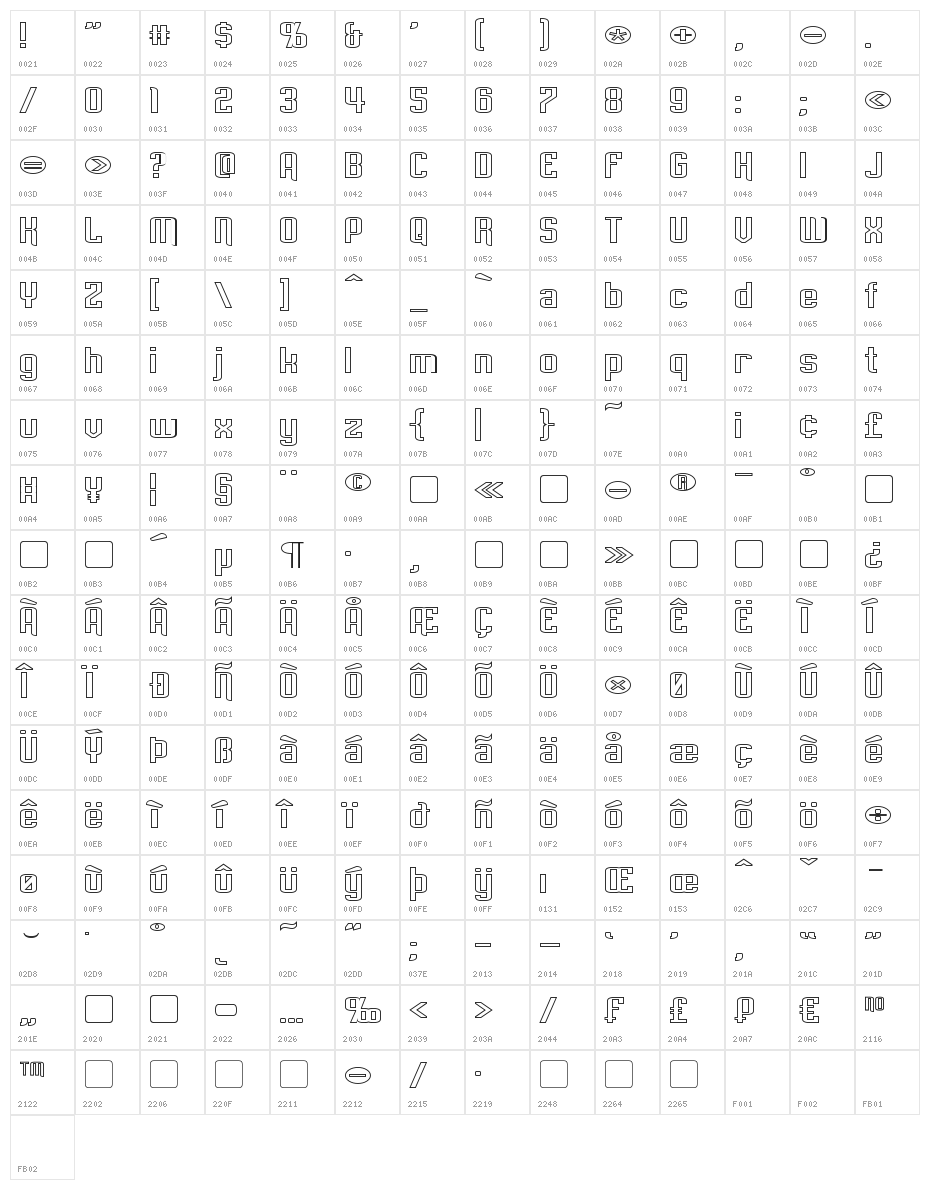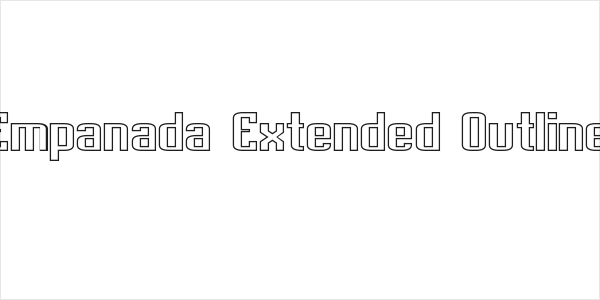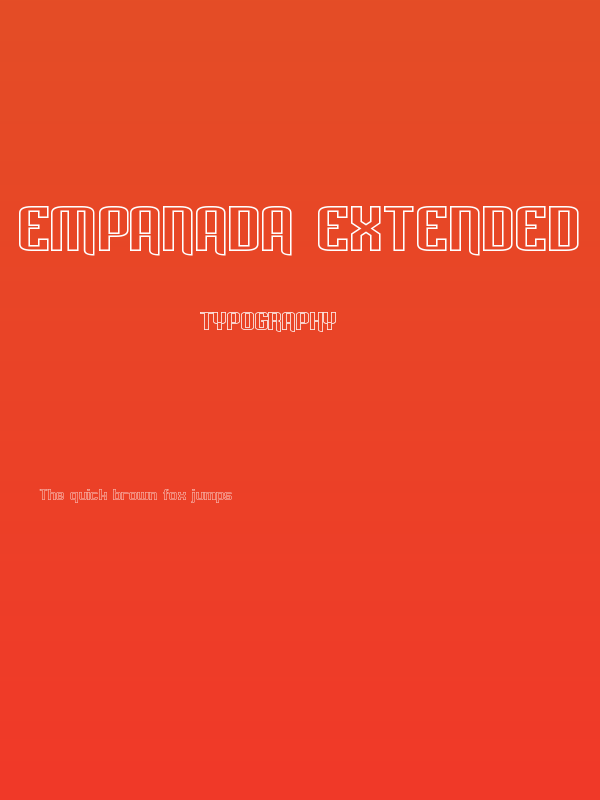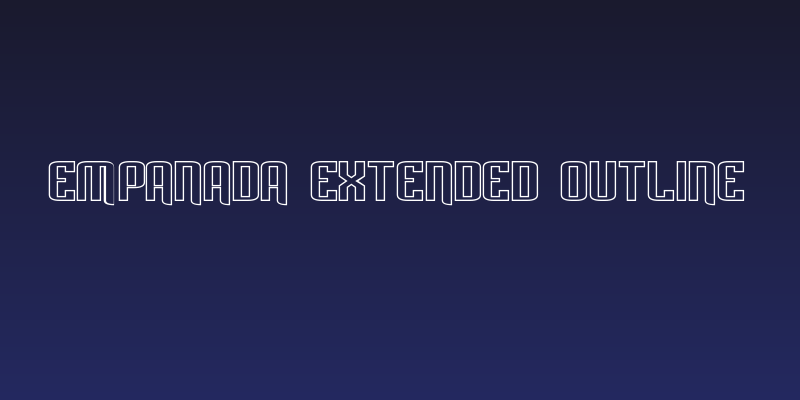
Empanada Extended Outline Font
Empanada Extended Outline Description
This font features a bold, extended outline style that gives it a striking and modern appearance. The characters are uppercase and lowercase letters, numerals, and a variety of special symbols, all presented with a consistent outline that creates a hollow effect. The design is geometric, with clean lines and a uniform thickness throughout each character. This outline style provides a unique visual impact, making it suitable for eye-catching designs. The font maintains a balanced proportion, ensuring readability while offering a distinctive aesthetic. Its extended width adds to its boldness, making it ideal for projects that require a strong visual presence.